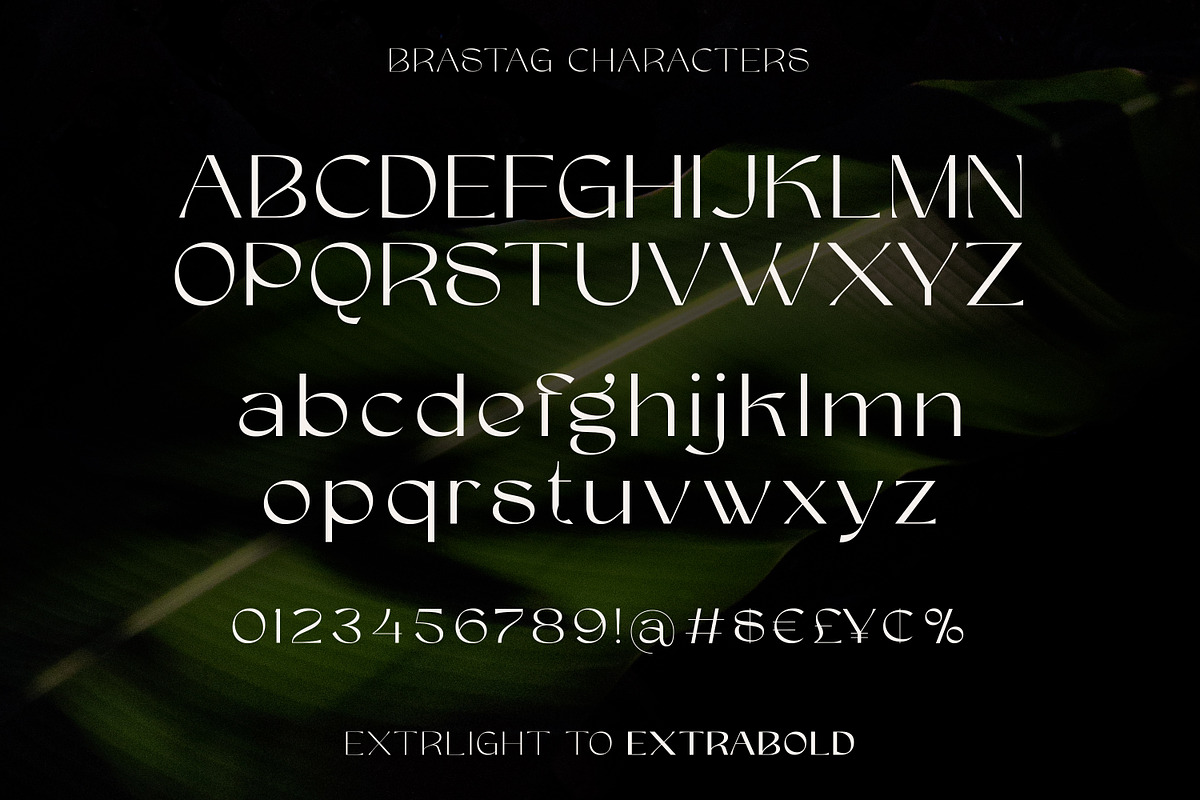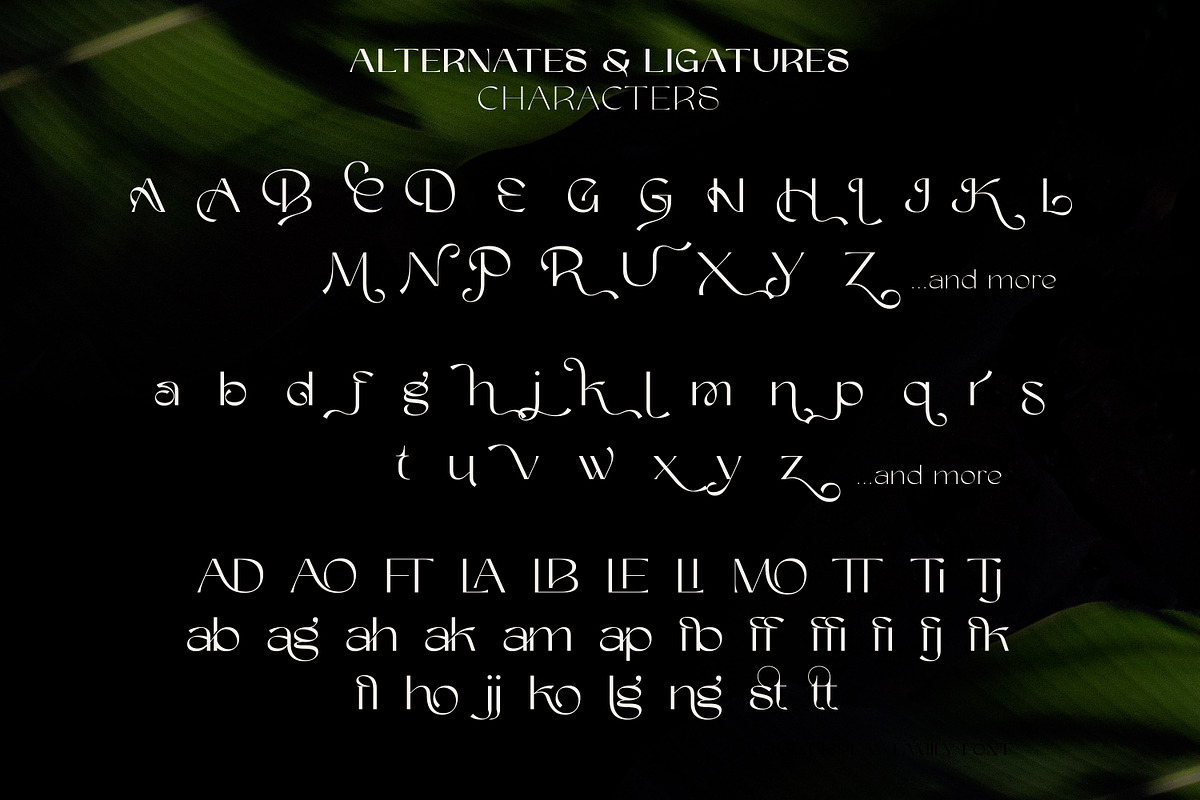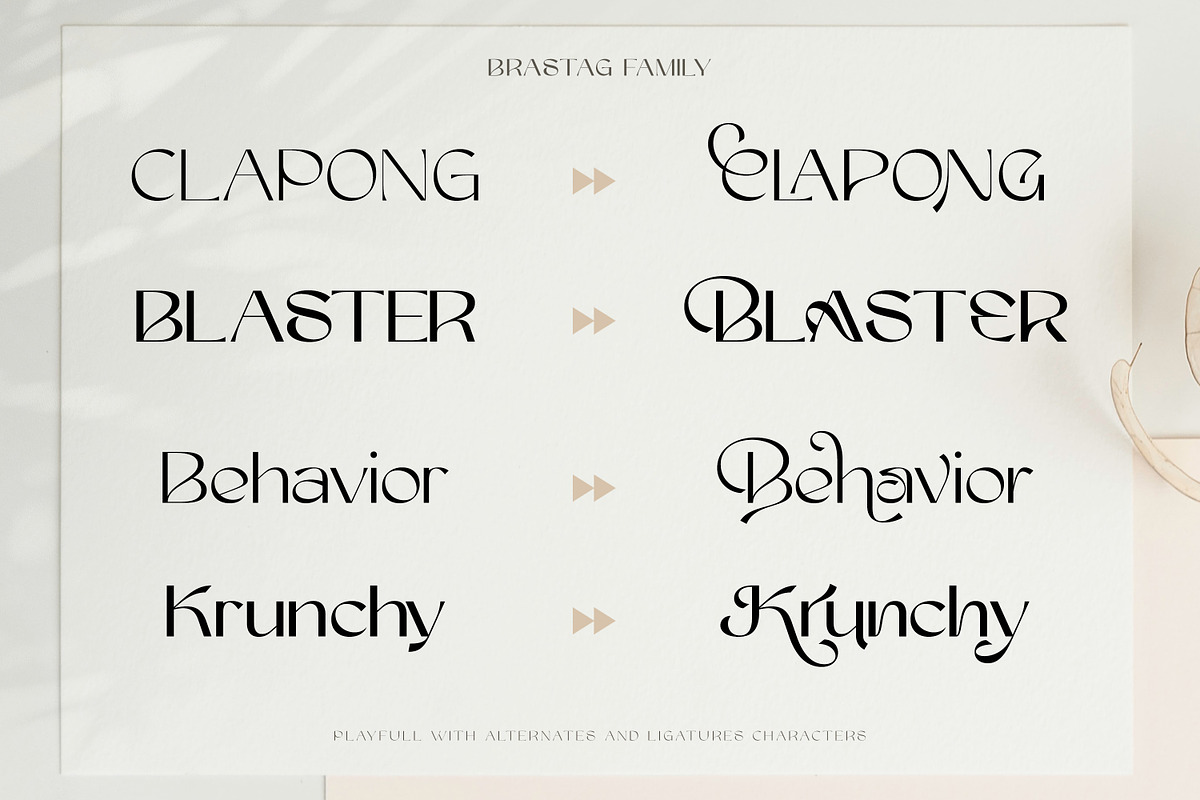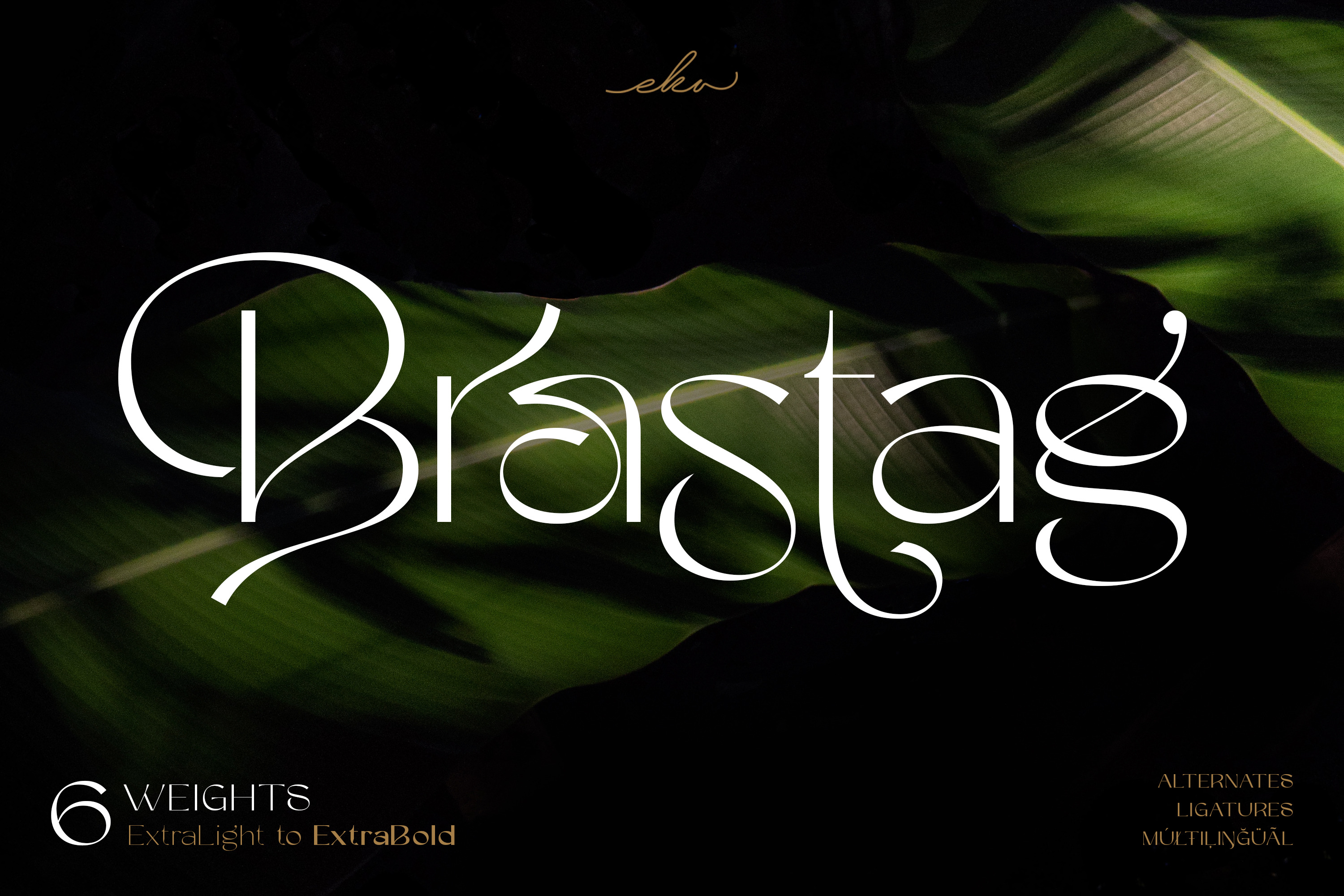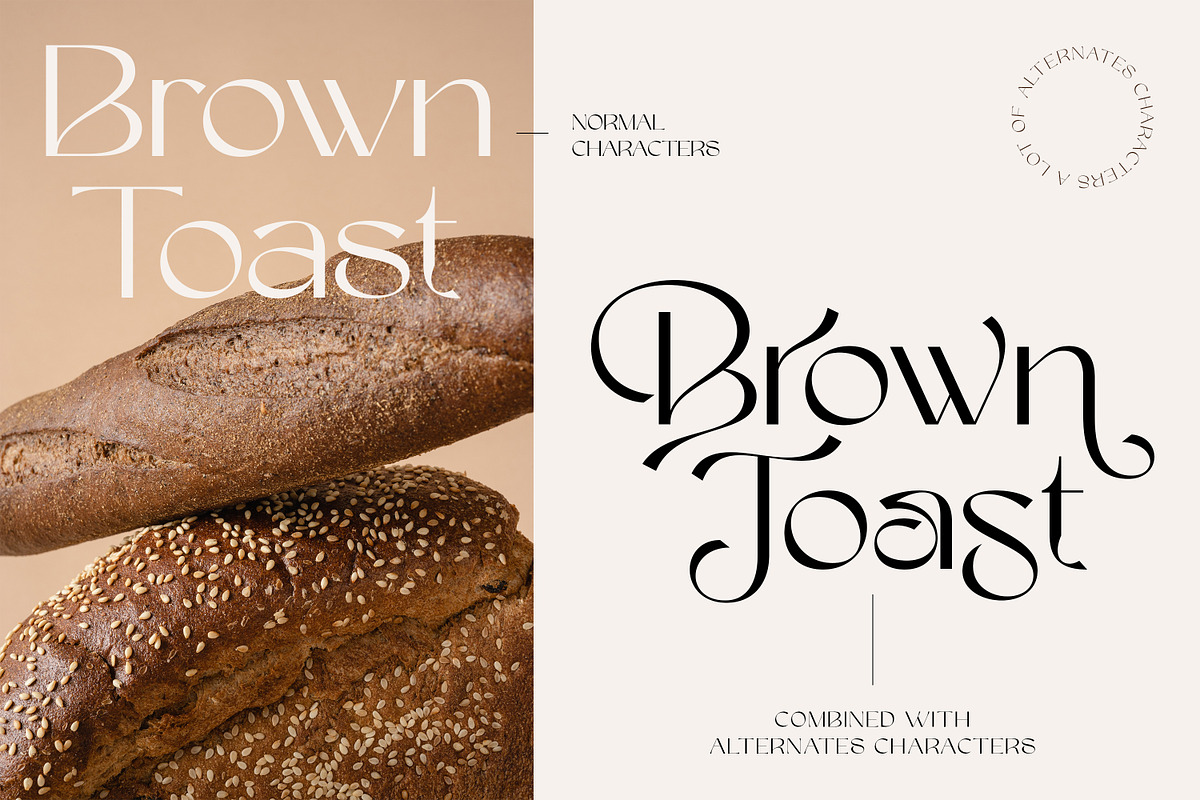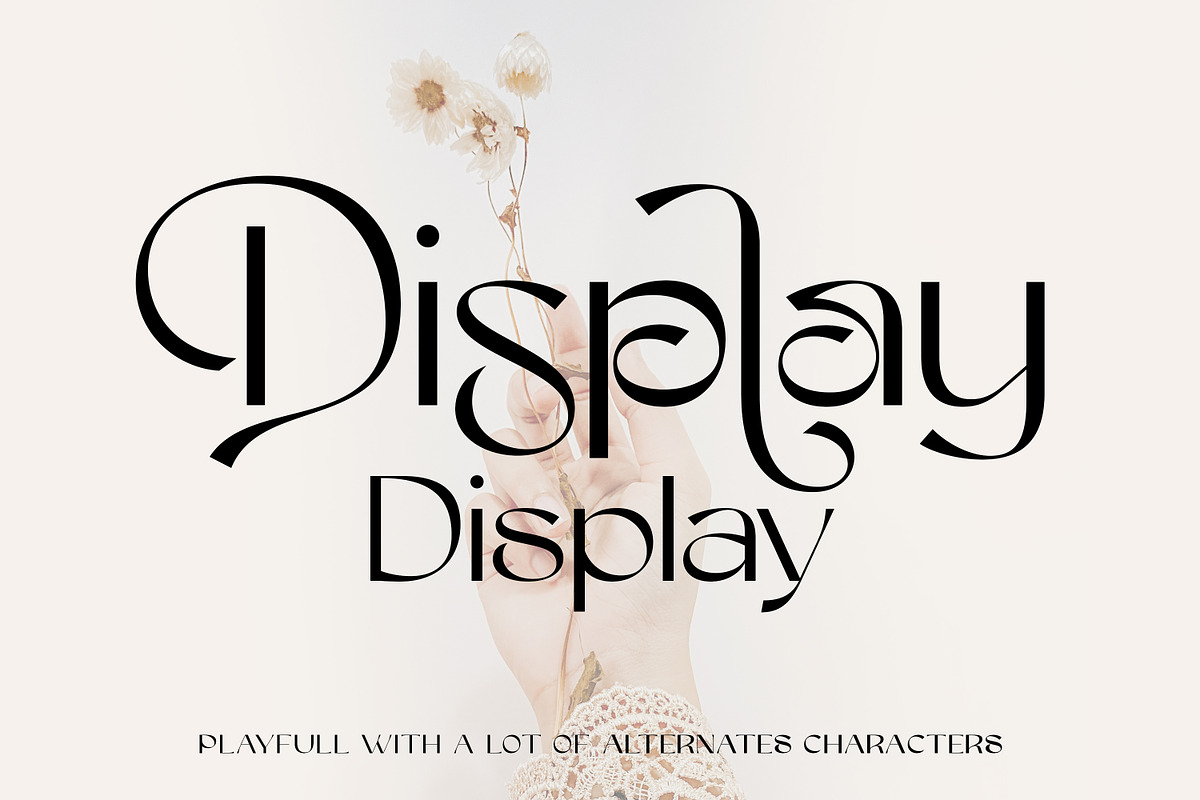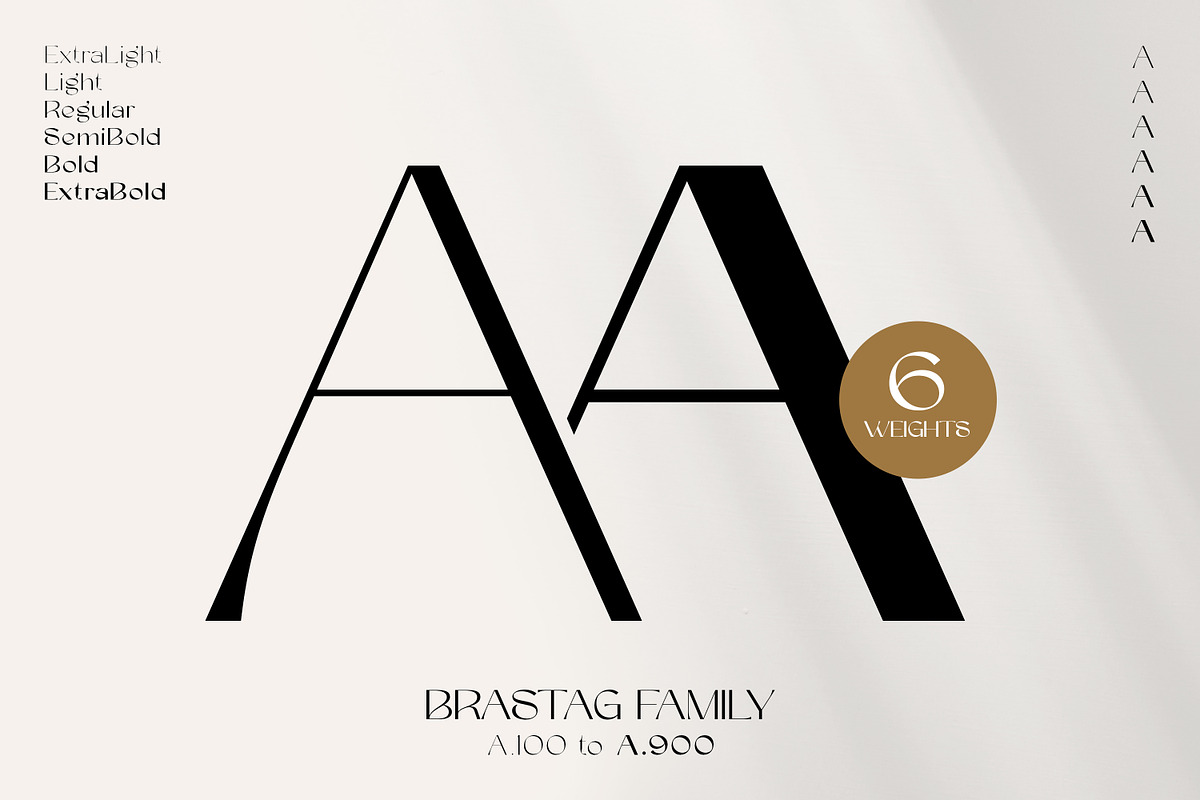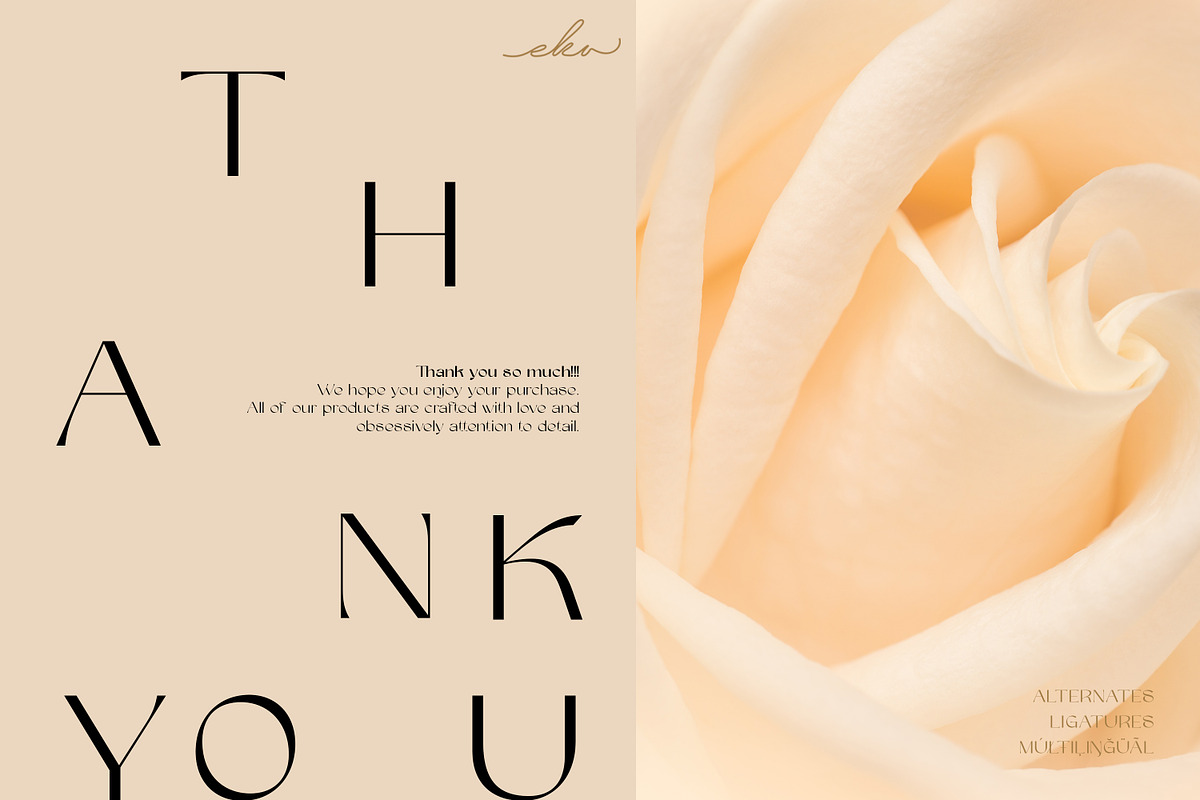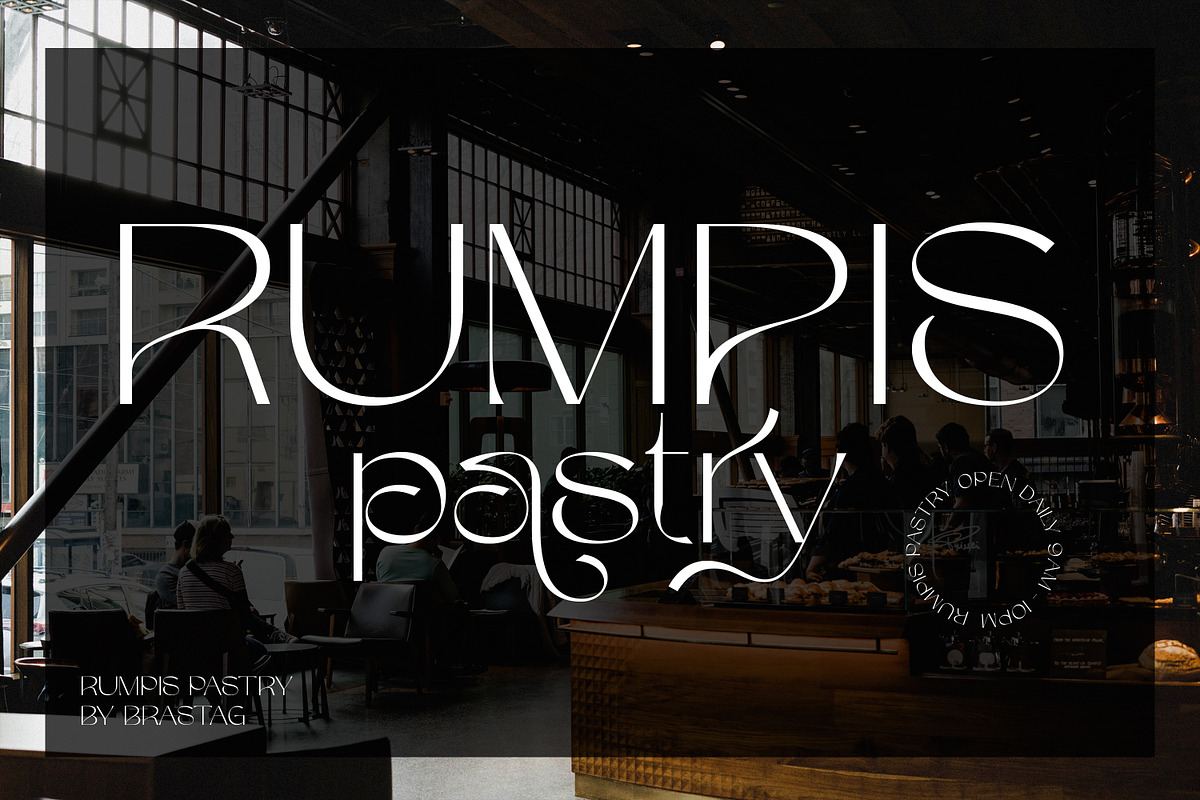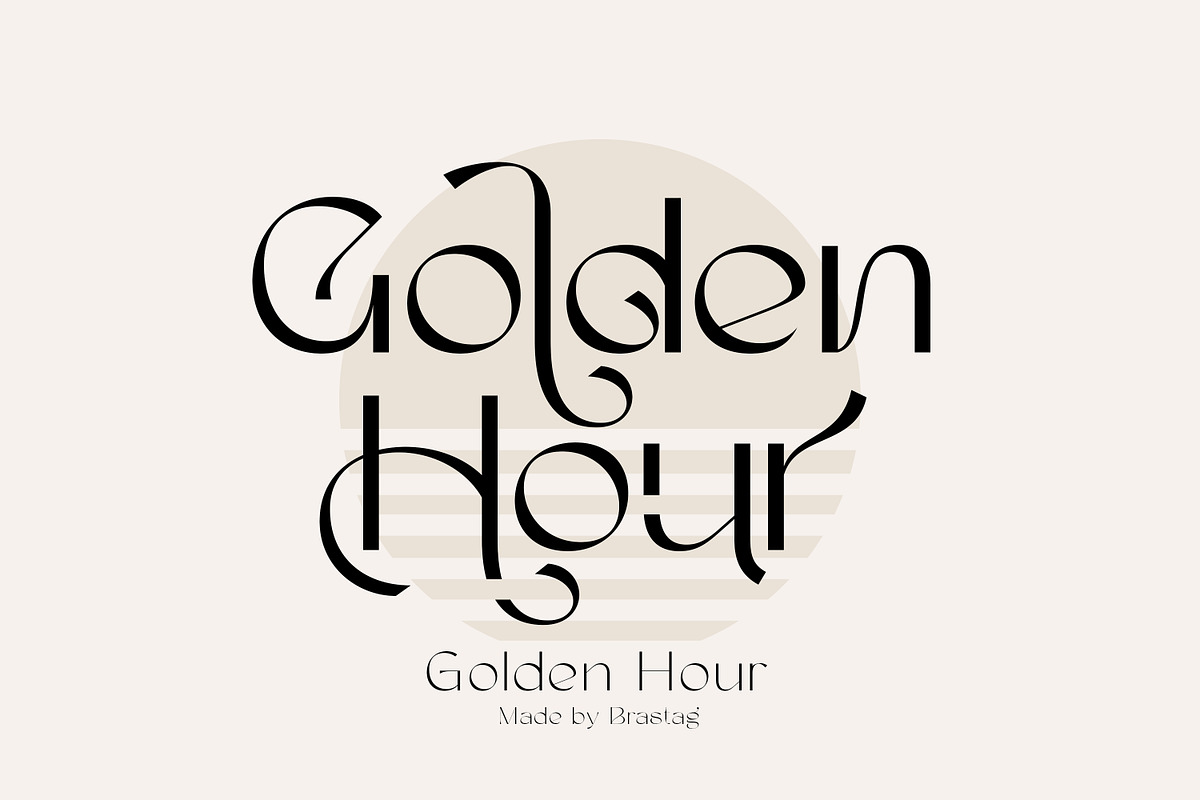
Brastag | Display Family Font
Introducing Brastag is an unique display family that consists of 6 weights from ExtraLight to ExtraBold. Brastag includes a lot of alternates and ligatures characters that are specially designed to make your typography design result looks more unique and beautiful. Brastag is perfect for many different projects such as logo design, wedding, branding, poster, magazines, labels, merchandise, invitation, presentation, advertising and so much more! If you need support or more information about this item, please kindly contact me: ekahermawanputu@gmail.com